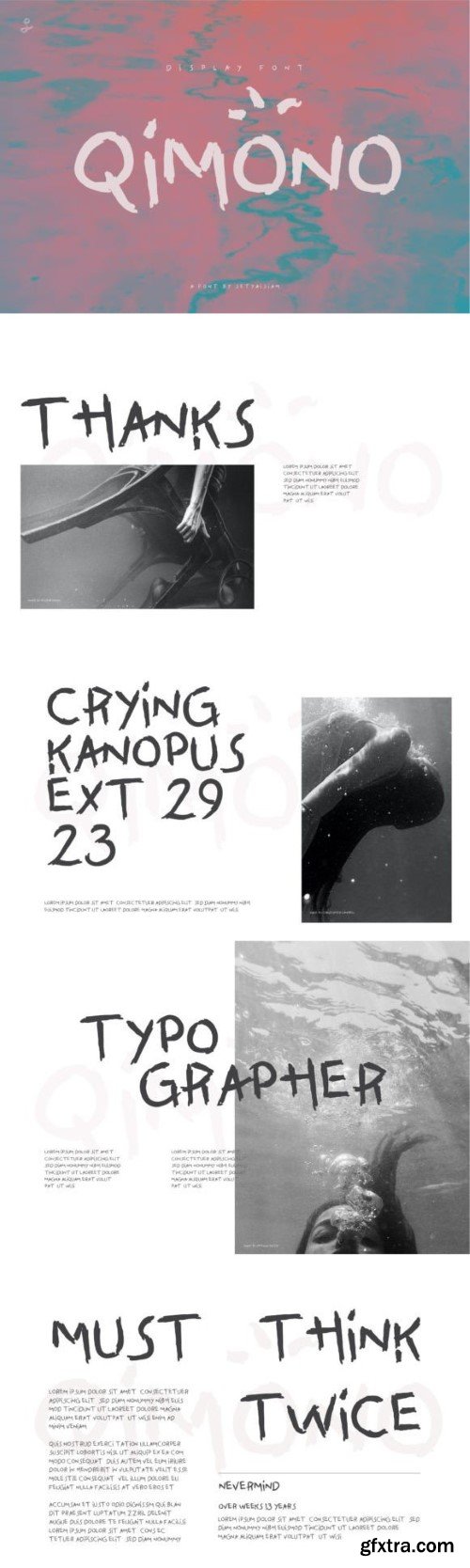
祈墨ono字体
Qimono is a fun and quirky handwritten font. Whether you use it for cartoon-related designs, children's games, or just any creation that requires a lovely touch, this font will be an amazing choice.